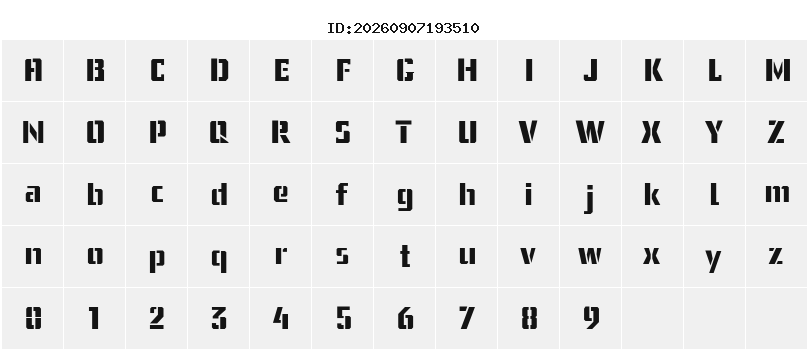
USSR STENCIL Preview
• Font Name: USSR STENCIL
• Font ID: AnastasiaMihaleva&JovannyLemonad: USSR STENCIL: 2016
• Full Font Name: USSR STENCIL
• PostScript Name: USSR-STENCIL
• Character Count: 413
• Designer: Anastasia Mihaleva & Jovanny Lemonad
• Manufacturer: Anastasia Mihaleva & Jovanny Lemonad
• Description: Copyright (c) 2016 by Anastasia Mihaleva. All rights reserved.
About USSR STENCIL.ttf
USSR STENCIL.ttf is a modern, elegant sans-serif font designed for ultimate readability and visual harmony. Perfect for branding, headlines, web design, and print materials.